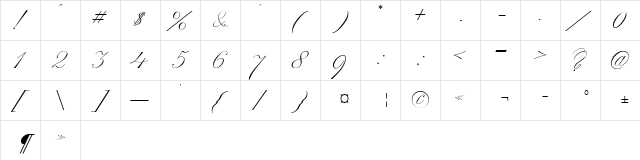
Script Thin pen Regular
| Foundry | Anatolie and Alexandra Gophmann |
| Designer | Anatole &A.Gophmann |
Design Context for Script Thin pen Typeface
Script Thin pen brings a calligraphic fluidity to the page — its connecting strokes and expressive curves give it an unmistakably human quality. Its slender proportions lend an understated elegance to any composition.
Font Pairing: Combine Script Thin pen with a simple geometric sans for maximum contrast — the tension between flowing curves and clean structure is a classic typographic pairing.
Pro Tip: Use Script Thin pen for short runs of text — names, titles, or taglines. Extended body copy in script faces tires the eye quickly.